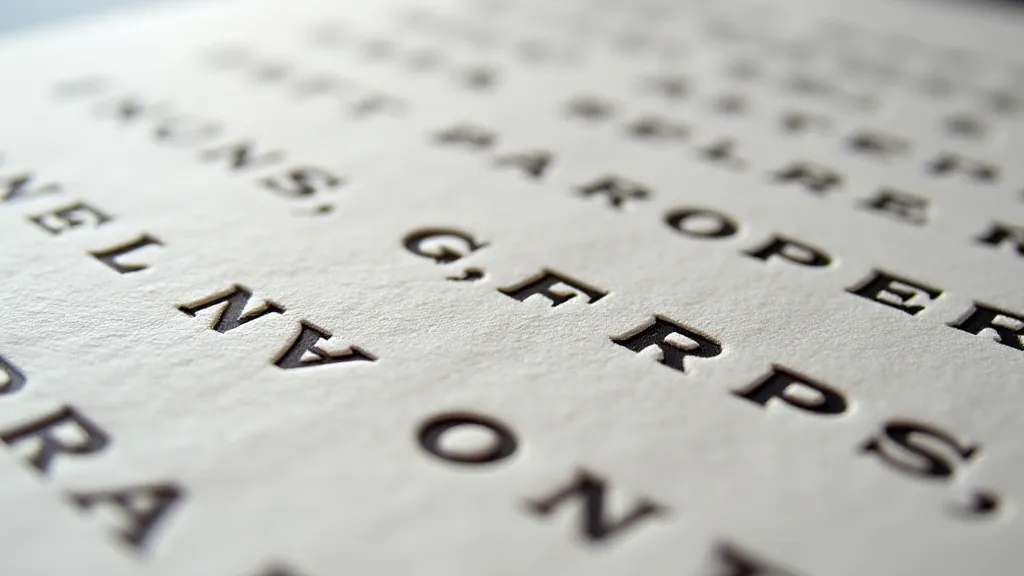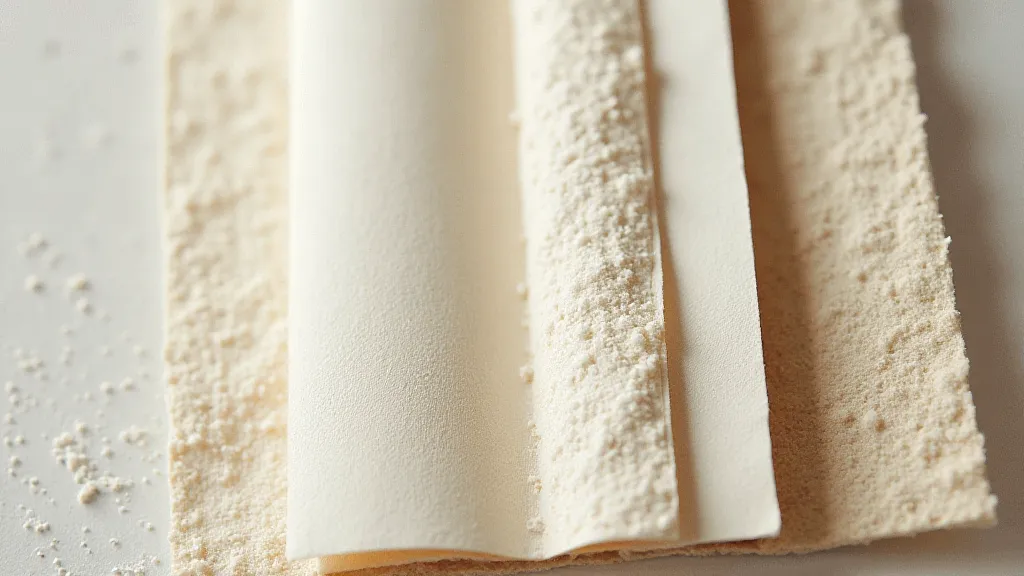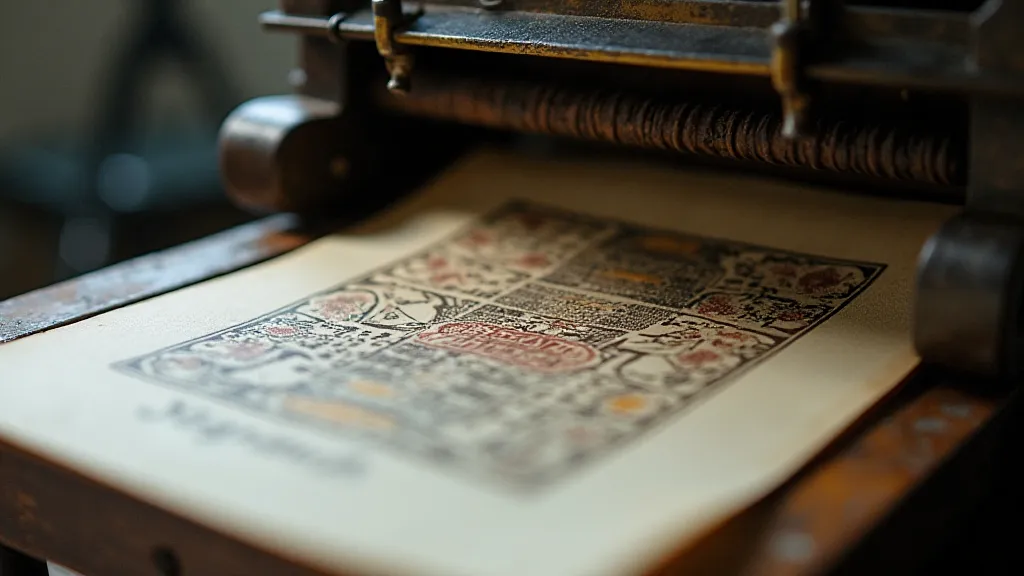
Letterpress Printing for Weddings: Creating Unique Invitations
Wedding invitations are more than just announcements; they’re a reflection of the couple's personality and the tone of the celebration. In an era of digital everything, choosing letterpress printing for your wedding stationery is a powerful statement – a nod to tradition, craftsmanship, and enduring beauty. This article explores how letterpress printing elevates wedding invitations, focusing on current design trends and the possibilities for personalization.
The Allure of Letterpress: More Than Just a Pretty Impression
Letterpress printing is a tactile and visually stunning process where a raised surface (the "form") is pressed into the paper, creating a beautiful debossed impression. This isn't just a design effect; it’s a physical experience. The slight indentation adds depth and texture, giving the invitation a luxurious and handcrafted feel that digital printing simply can’t replicate. The pressure applied also means the ink sits slightly below the surface of the paper, providing a richer color saturation and a subtle sheen.
Design Trends in Letterpress Wedding Invitations
While the traditional elegance of letterpress remains timeless, current design trends are incorporating modern elements to create truly unique invitations. Here are a few notable styles:
- Botanical Illustrations: Delicate floral designs, often hand-drawn or watercolor, are incredibly popular. The letterpress impression beautifully accentuates the intricate details of the leaves and petals.
- Geometric Patterns: Bold, geometric shapes and patterns, often rendered in minimalist color palettes, provide a contemporary edge. The texture of the letterpress adds a surprising depth to these clean designs.
- Calligraphy and Script Fonts: Flowing calligraphy or elegant script fonts are a classic pairing with letterpress. The raised impression emphasizes the graceful curves and lines of the lettering.
- Minimalist Aesthetics: Embracing a less-is-more approach, minimalist designs often feature simple typography and a limited color palette, allowing the letterpress impression to be the star of the show.
Personalization: Making Your Invitations Truly Yours
The beauty of letterpress printing lies in its ability to be deeply personalized. Beyond just names and dates, consider these options:
- Custom Monograms: A personalized monogram is a sophisticated touch that adds a sense of heritage and exclusivity.
- Hand-Drawn Illustrations: Commission a custom illustration that reflects your shared interests or a significant location in your relationship.
- Unique Paper Choices: Experiment with different paper stocks, such as cotton, linen, or handmade paper, to enhance the tactile experience. The weight and texture of the paper significantly influence the final look and feel.
- Blind Impression: This technique utilizes the pressure of the form without ink, creating a subtle and elegant impression that adds texture and depth.
The Process: From Design to Finished Invitation
Letterpress printing is a more involved process than digital printing. Here's a simplified overview:
- Design Creation: The invitation design is created, taking into account the limitations of the letterpress process (sharp edges and fine details can be challenging).
- Form Creation: A form (typically made of metal) is created from the design. This can be done through engraving or photopolymer processes.
- Printing: The form is locked into a letterpress printing press, and the paper is pressed against it, creating the impression.
- Finishing: The printed invitations are trimmed and prepared for mailing.